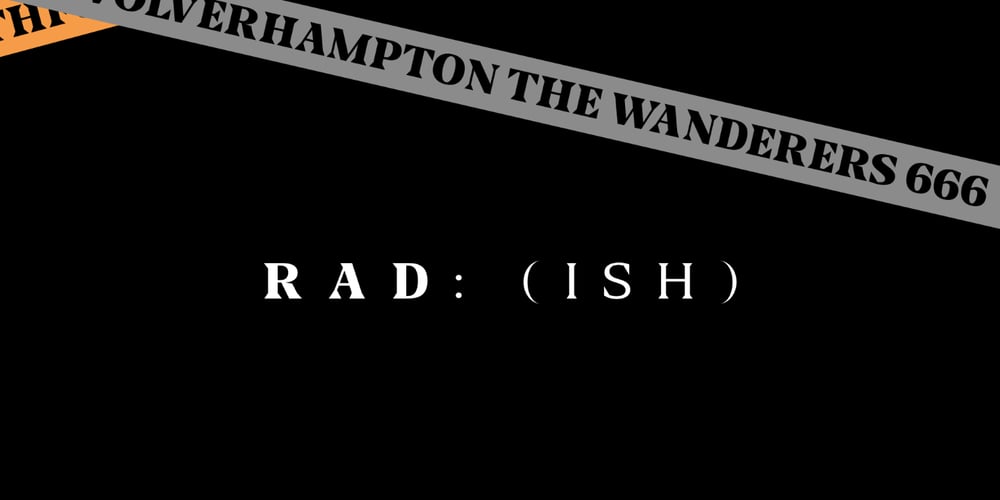
Blaak
Blaak font
Blaak Font Family was designed by Måns Grebäck and published by Mans Greback. Blaak contains 12 styles and family package options. Blaak is an interpretation of a Modern Classic typeface with a beautiful and strong impression for editorial design. The sharp serif combined with curves gives Blaak a fabulous, glamorous and bold look; at the same time doesn’t sacrifice its functionality.